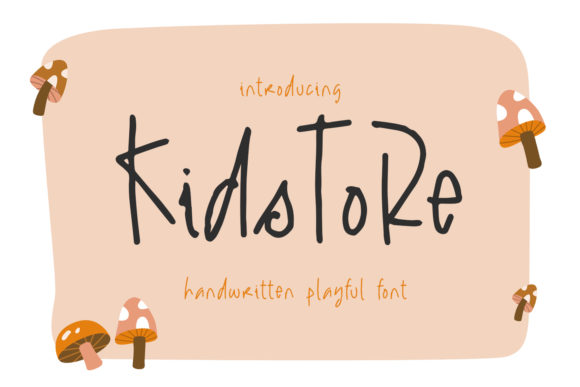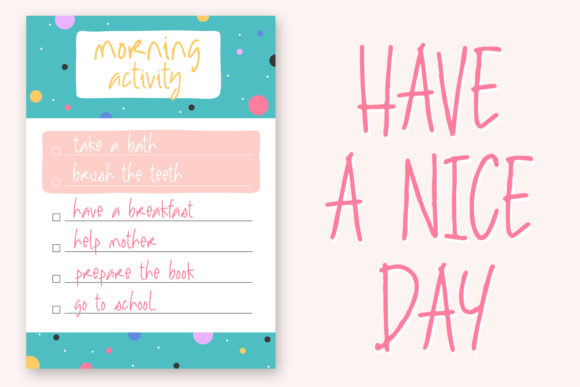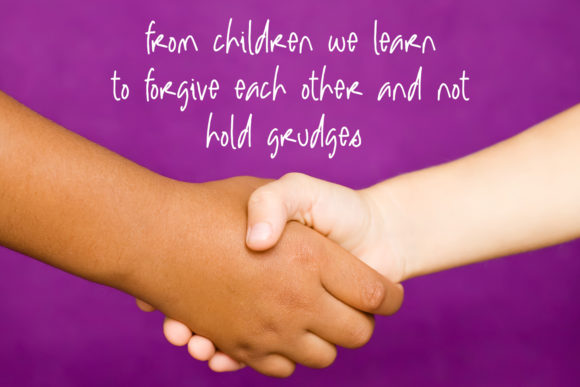
About Kidstore Font
Kidstore is a unique and interesting handwritten font. Incredibly versatile, this font will fit a wide pool of designs.
Fall in love with its incredibly stylish look and use it to create spectacular designs!